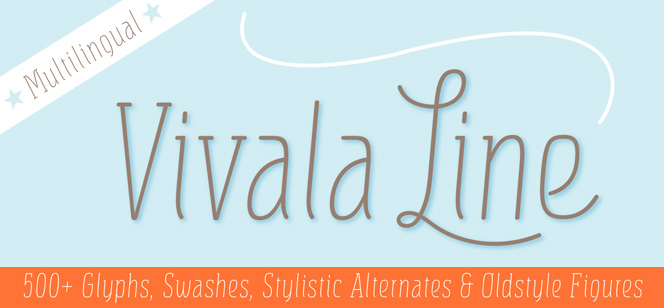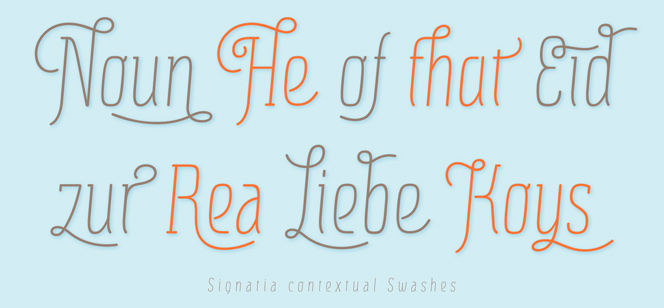
Vivala Line font
Vivala Line font is a fresh artistic combination of condensed monoline cursive sans and elegant handwritten script incorporating legibility and low contrast with the beauty of feminine presence and tenderness of scripts. This hot new font is actually inspired by an old Polish children book and it preserves and develops the freshness of its hand-lettered titles in an unique contemporary way. Being light and monoline makes Vivala Line excellent both for large text paragraphs and for expressive titles as well. It has contextual swashes, stylistic alternates and fancy ligatures to make your typographic work more sophisticated, professional and diverse. An extra set of multilingual characters is available too and you’ll have full access if using an OpenType software. Vivala Line will look beautiful on your book cover, gourmet journal, wedding invitation, food packaging or elegant t-shirt design.
Vivala Line font is designed by Germany based typographer Johannes Hoffmann in 2014.
Designers: Johannes Hoffmann
Publisher: Johannes Hoffmann